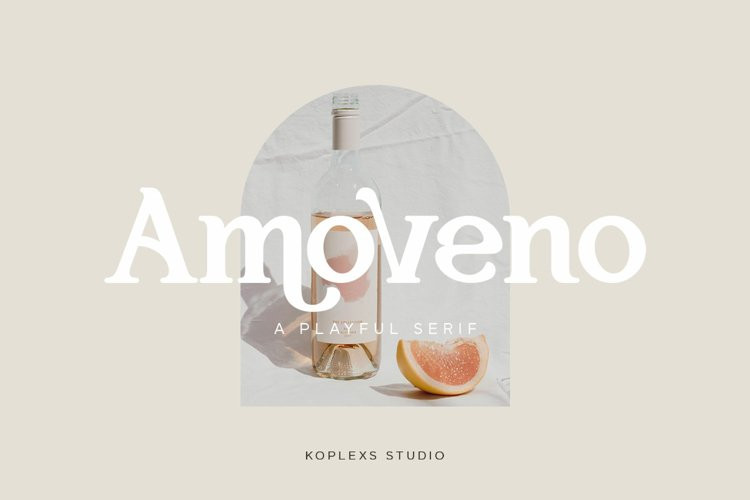
Amoveno Font
Amoveno FontAmoveno is a Playful Elegant Modern vintage font with beautiful ligatures, tons of special alternative glyphs, ornament and multilingual support. It’s a very versatile font that works great in large and small sizes.
Amoveno – A Playful Serif a very versatile font, covering a wide range project types, from branding projects, Logo design, Clothing Branding, product packaging, magazine headers, to wedding invitations, to branding, poster design and so much more.
Access your OpenType features to access the large selection of alternate letters and ligatures, select the letters you like from the large variety to look you are after.